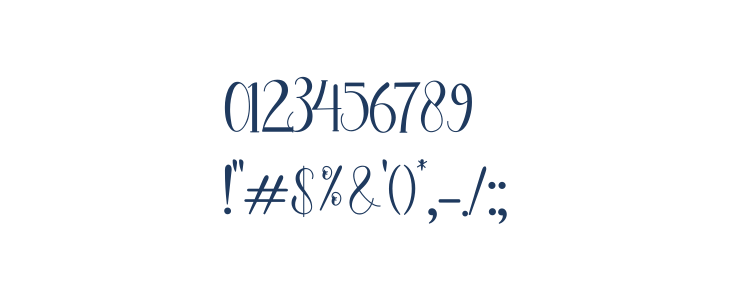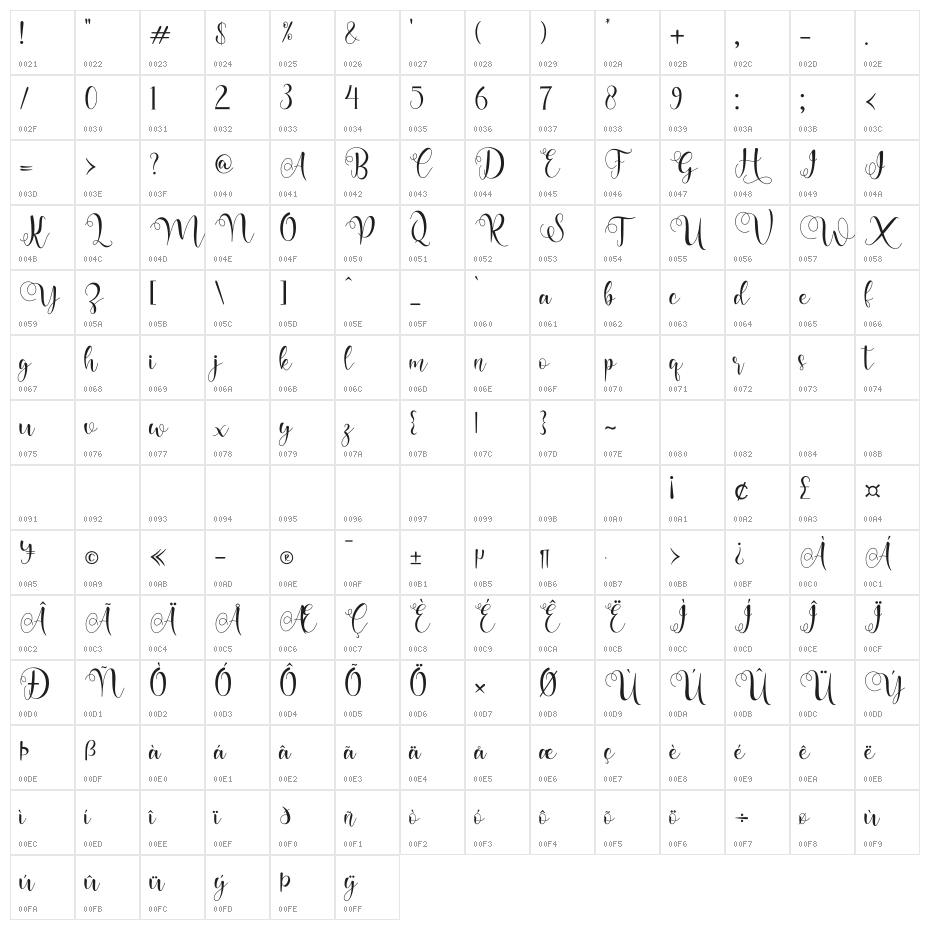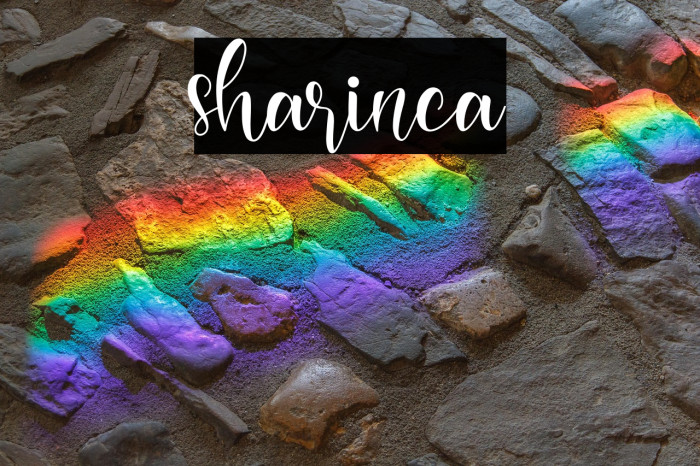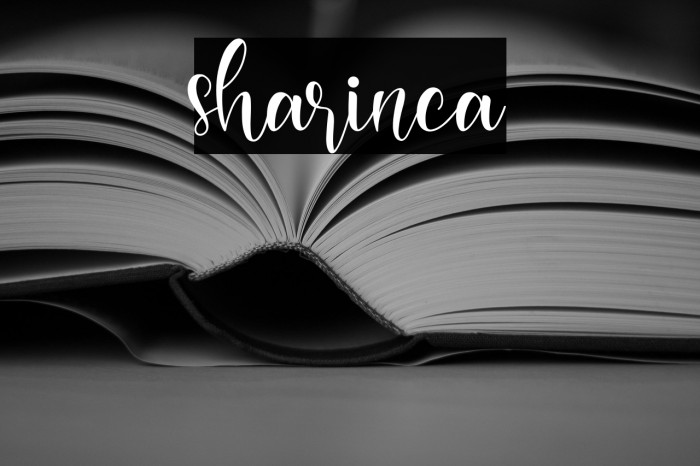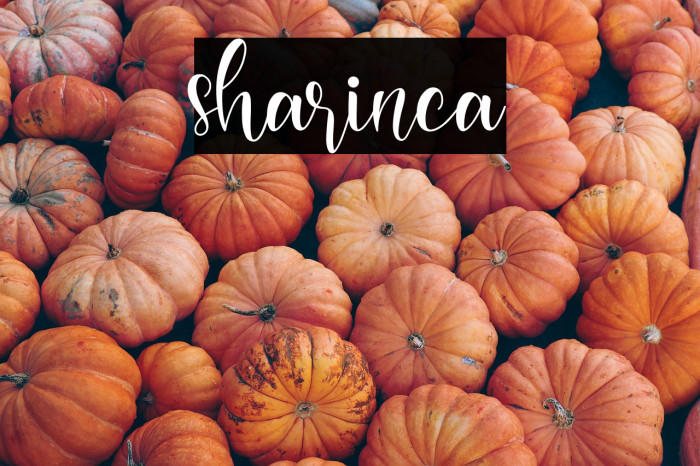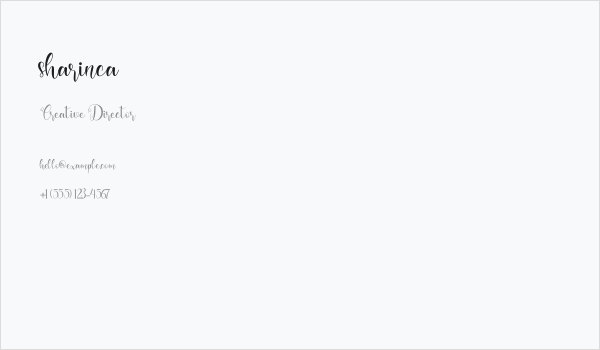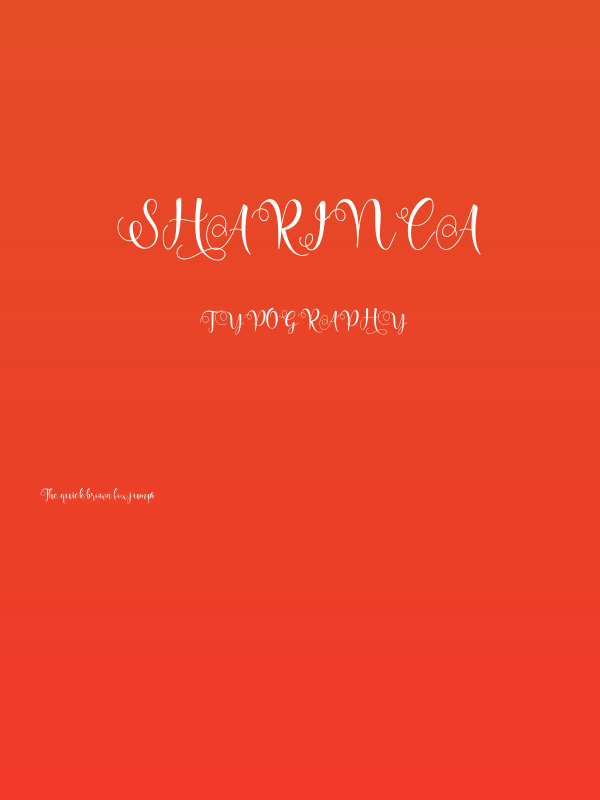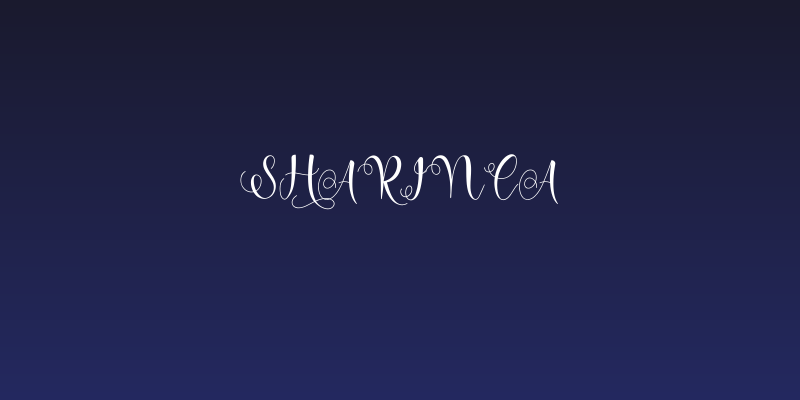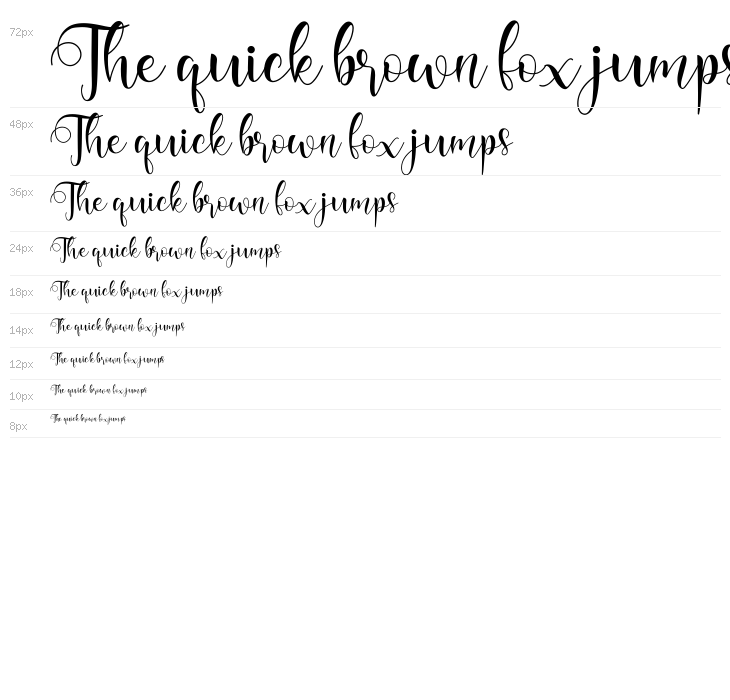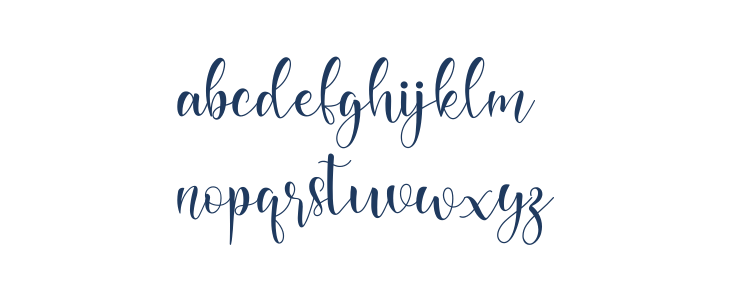
sharinca Font
sharinca Description
This font features an elegant and decorative script style, characterized by its flowing, interconnected letters and intricate swirls. The uppercase letters are particularly ornate, with flourishes that extend beyond the baseline and cap height, creating a sense of movement and sophistication. The lowercase letters maintain a consistent style, with smooth curves and a slightly slanted orientation, enhancing the script's fluidity. The numerals are distinct, with a modern touch that complements the overall aesthetic. Special characters are designed with the same attention to detail, ensuring a cohesive look across all glyphs. This font is ideal for projects that require a touch of elegance and artistic flair.
| Proposed Projects | Wedding invitations, luxury branding, greeting cards, and elegant packaging designs. |